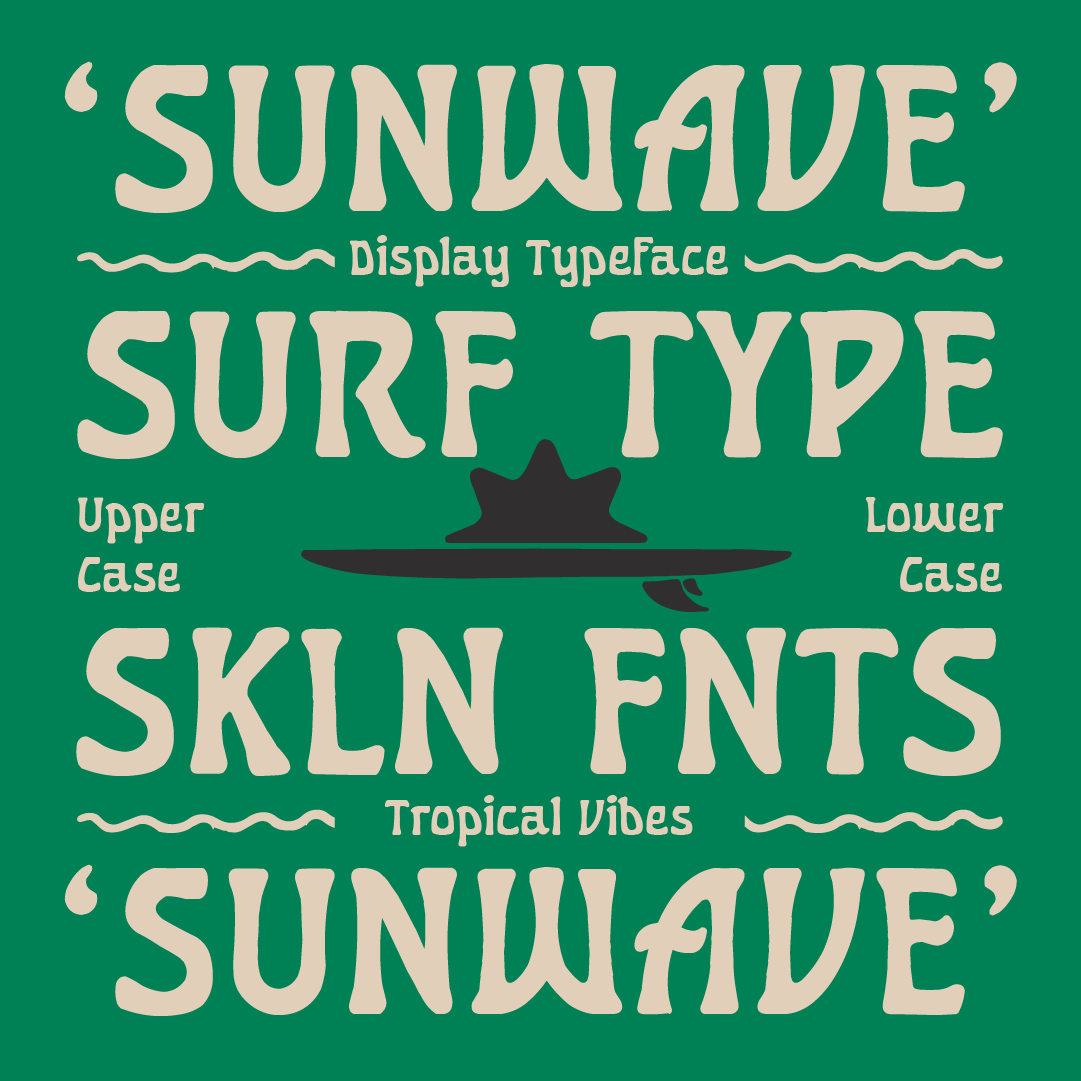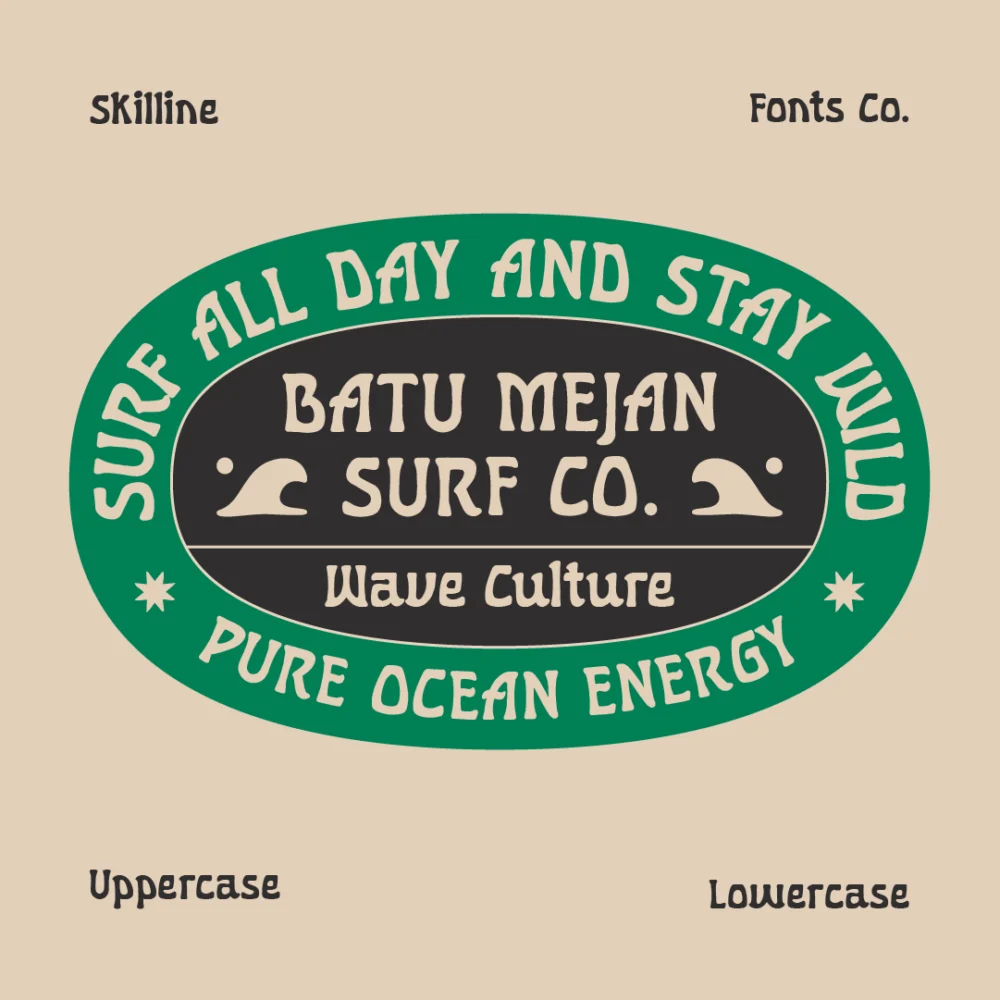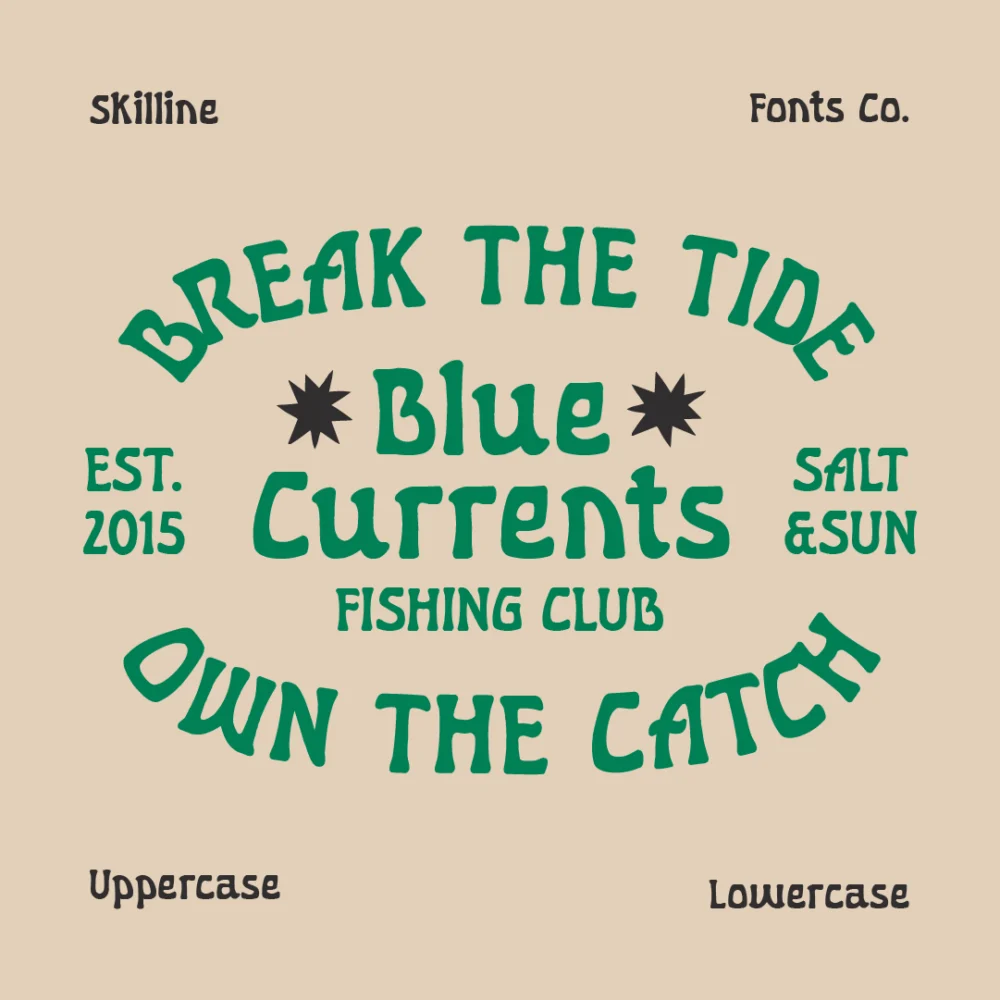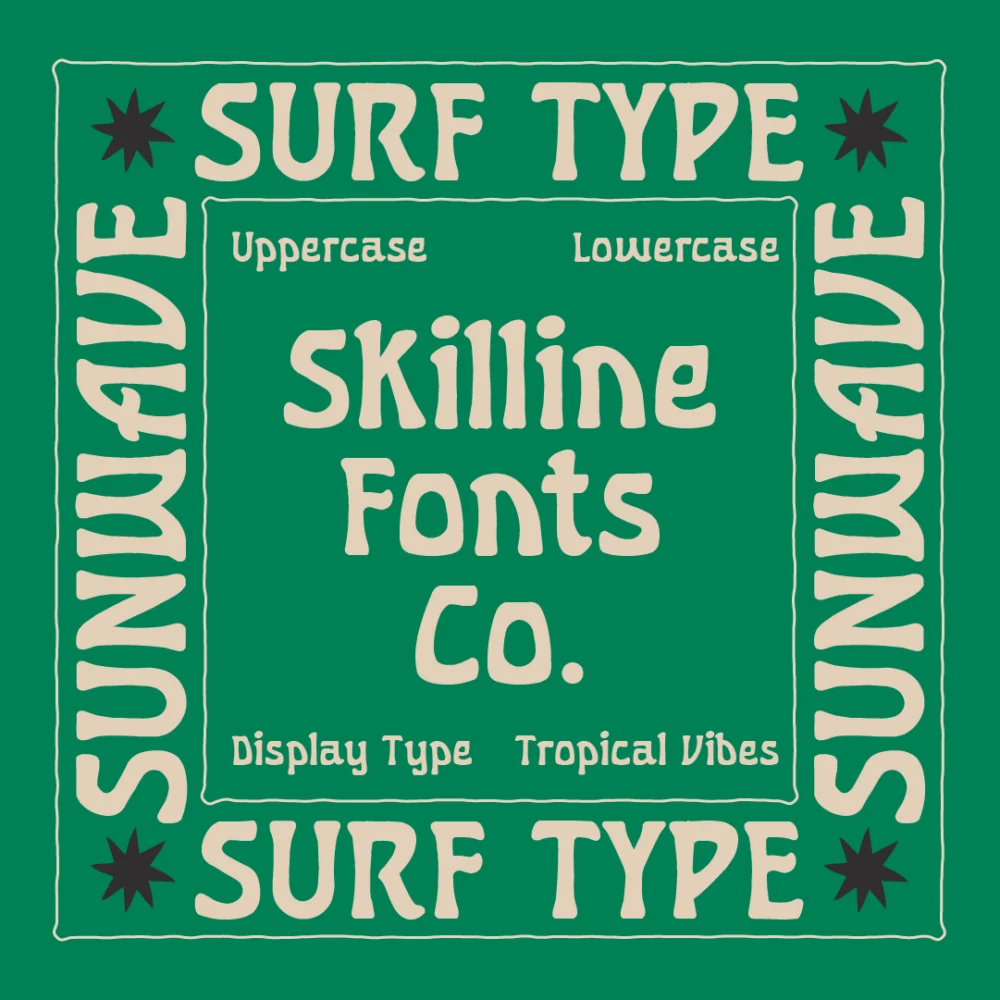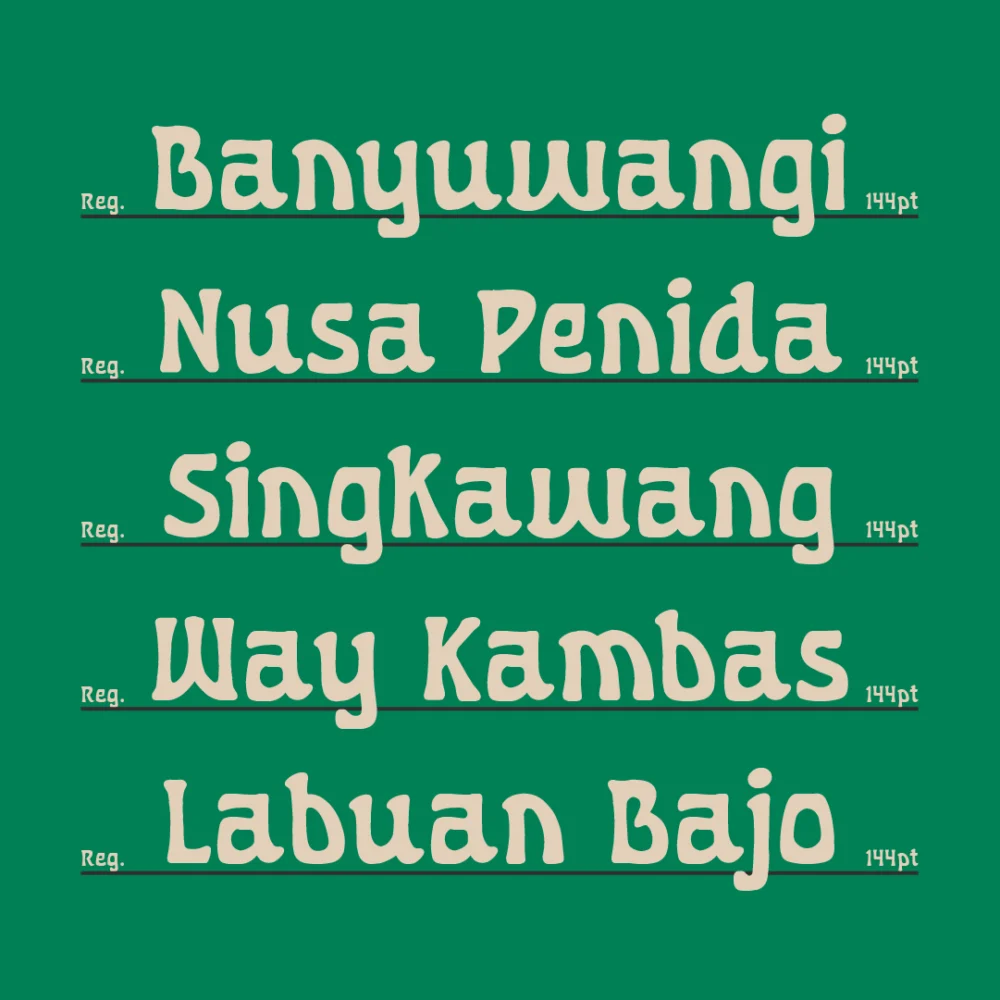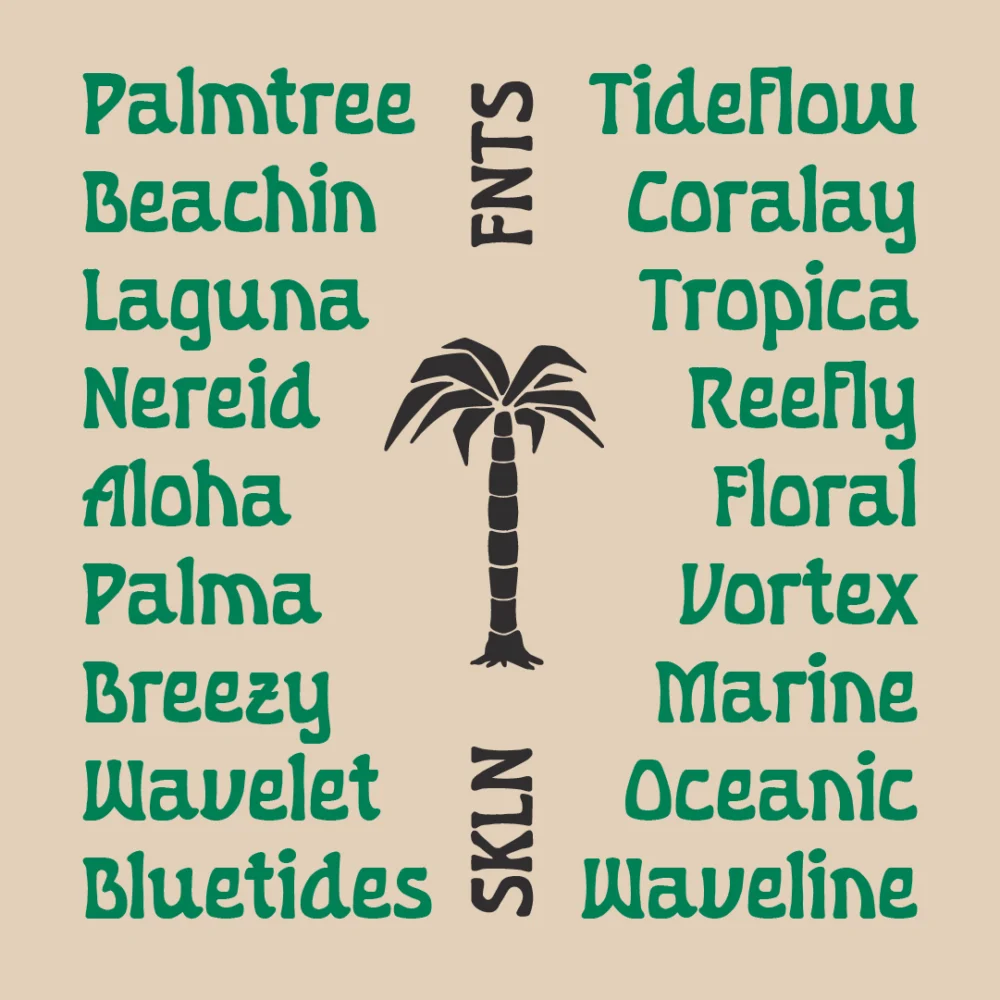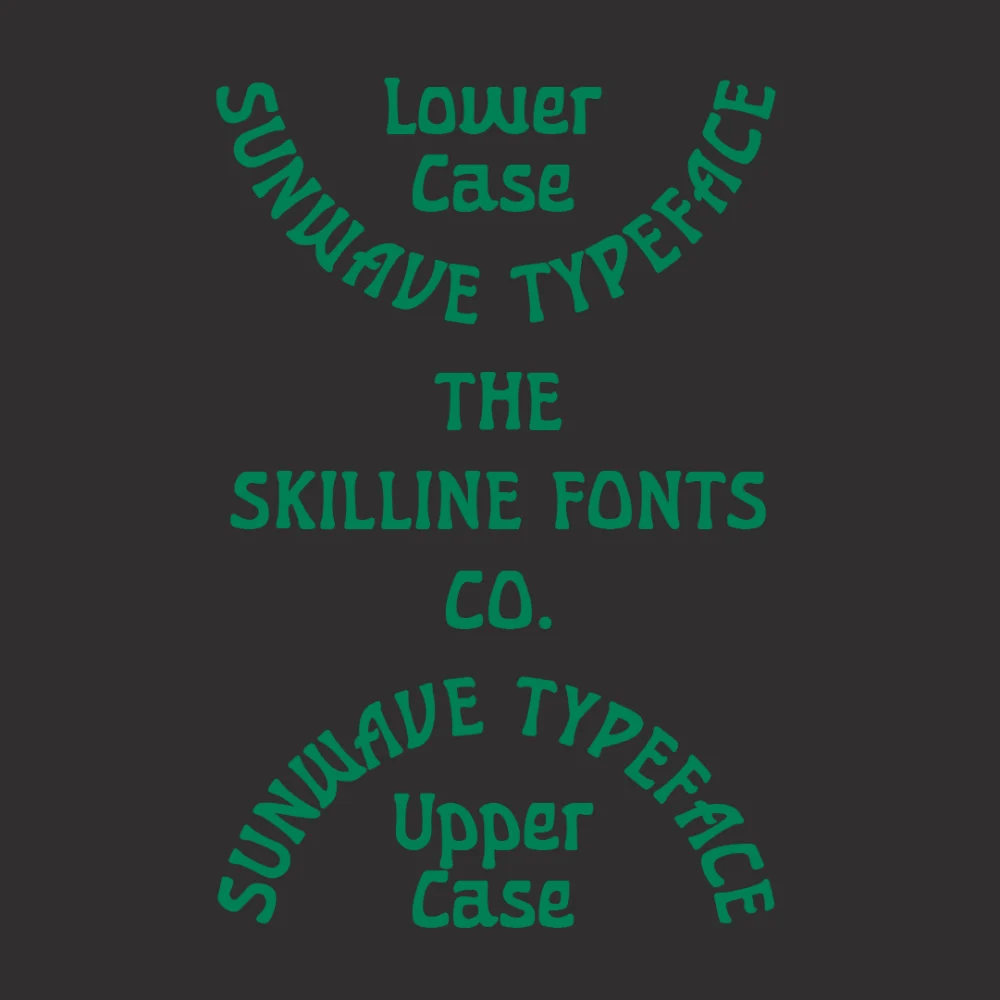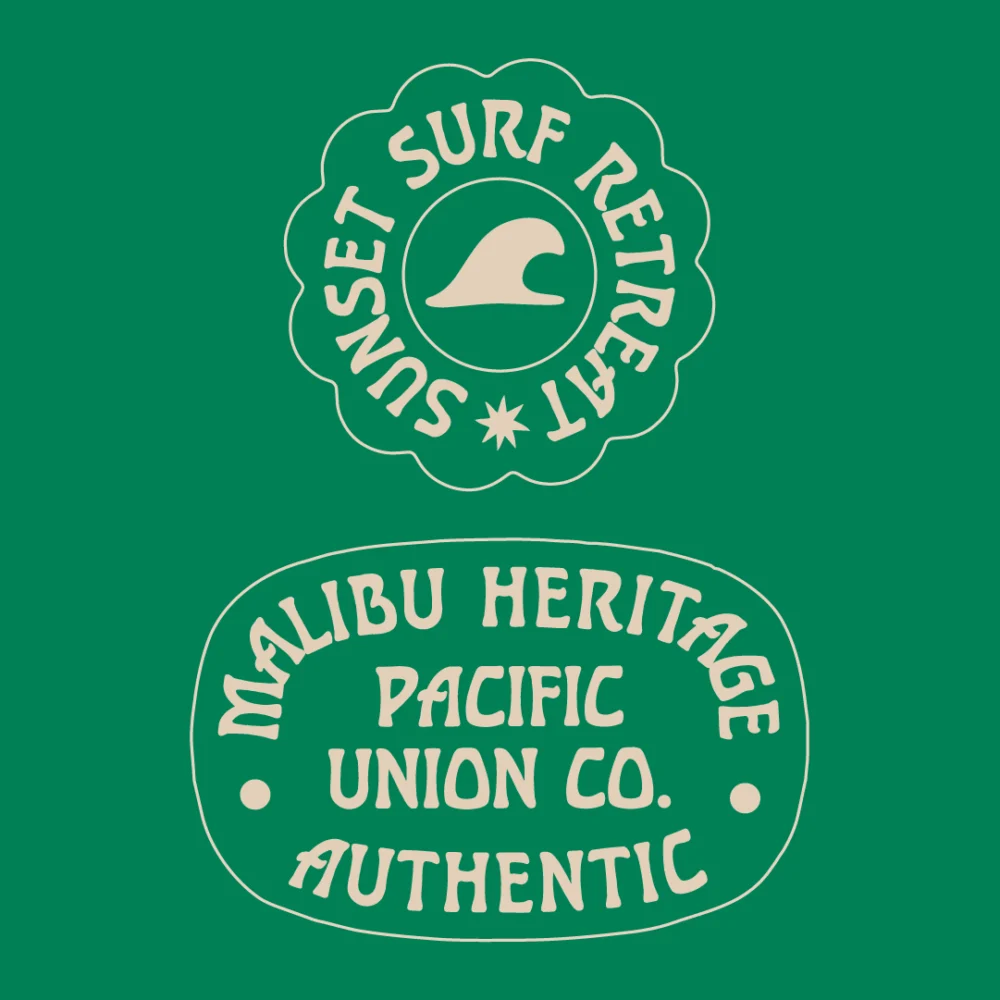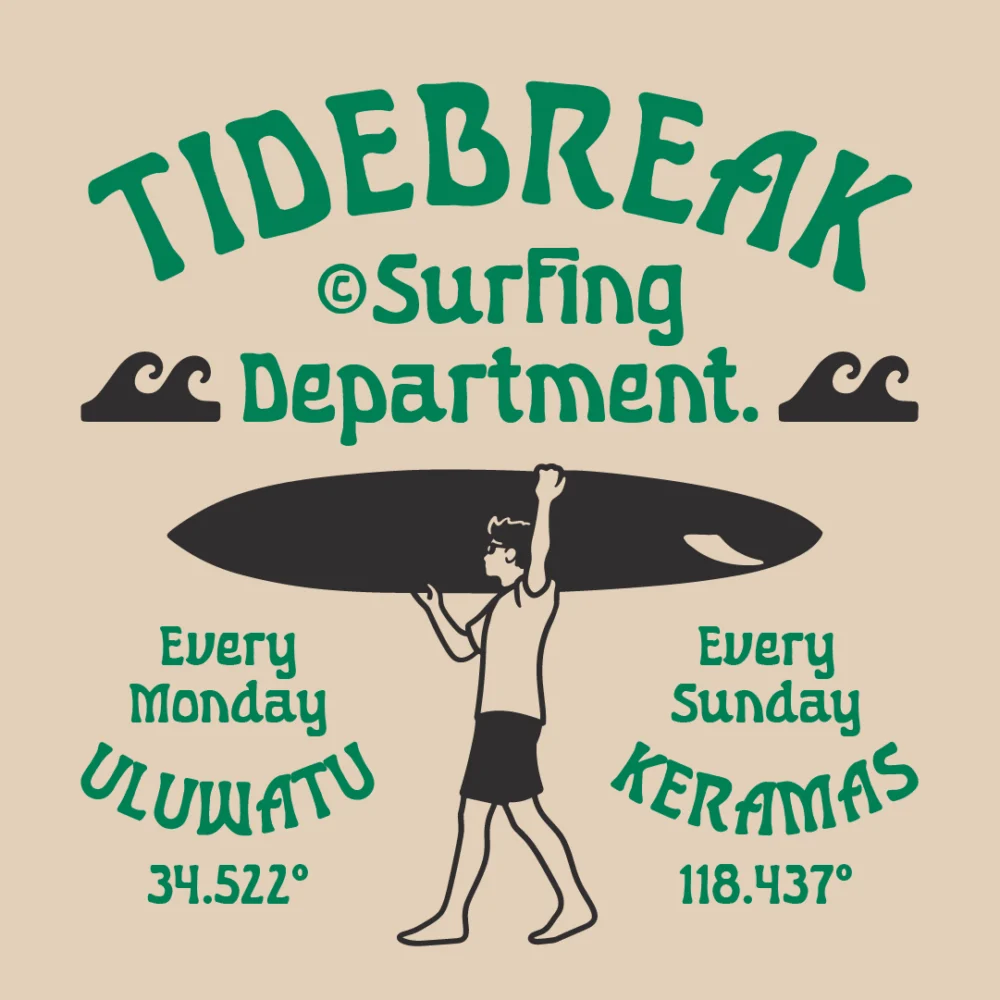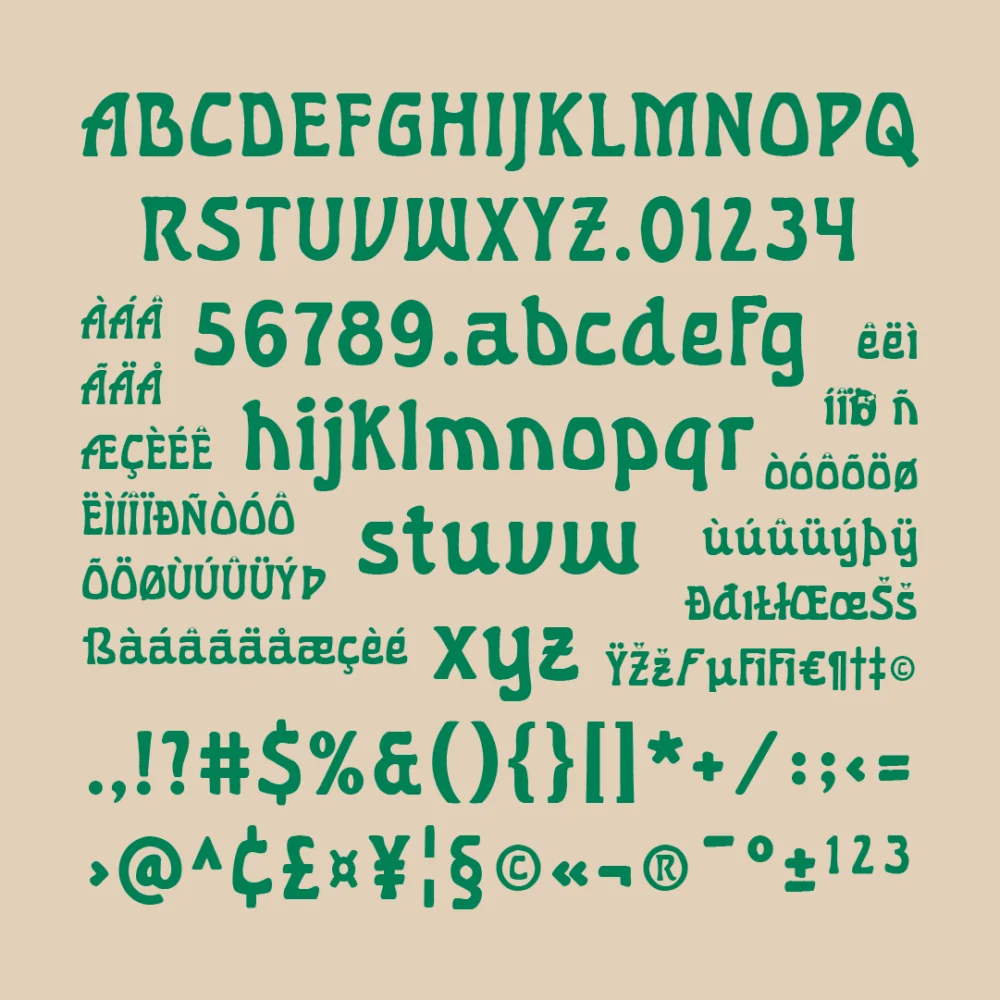
SFC Sunwave is a handcrafted vintage display font inspired by surf culture, tropical destinations, beach towns, and classic coastal signage. Its bold rounded shapes and relaxed handmade character create an authentic retro feeling while remaining highly readable for modern branding projects. Whether you’re designing a surf logo, café packaging, beach apparel, posters, labels, or tropical merchandise, Sunwave brings warmth and personality to every composition.
Perfect for brands that want a nostalgic handcrafted aesthetic with contemporary usability.
• Vintage Display Typeface
• Handcrafted Tropical Character
• Uppercase & Lowercase
• Numerals & Punctuation
• Multilingual Support
SFC Sunwave